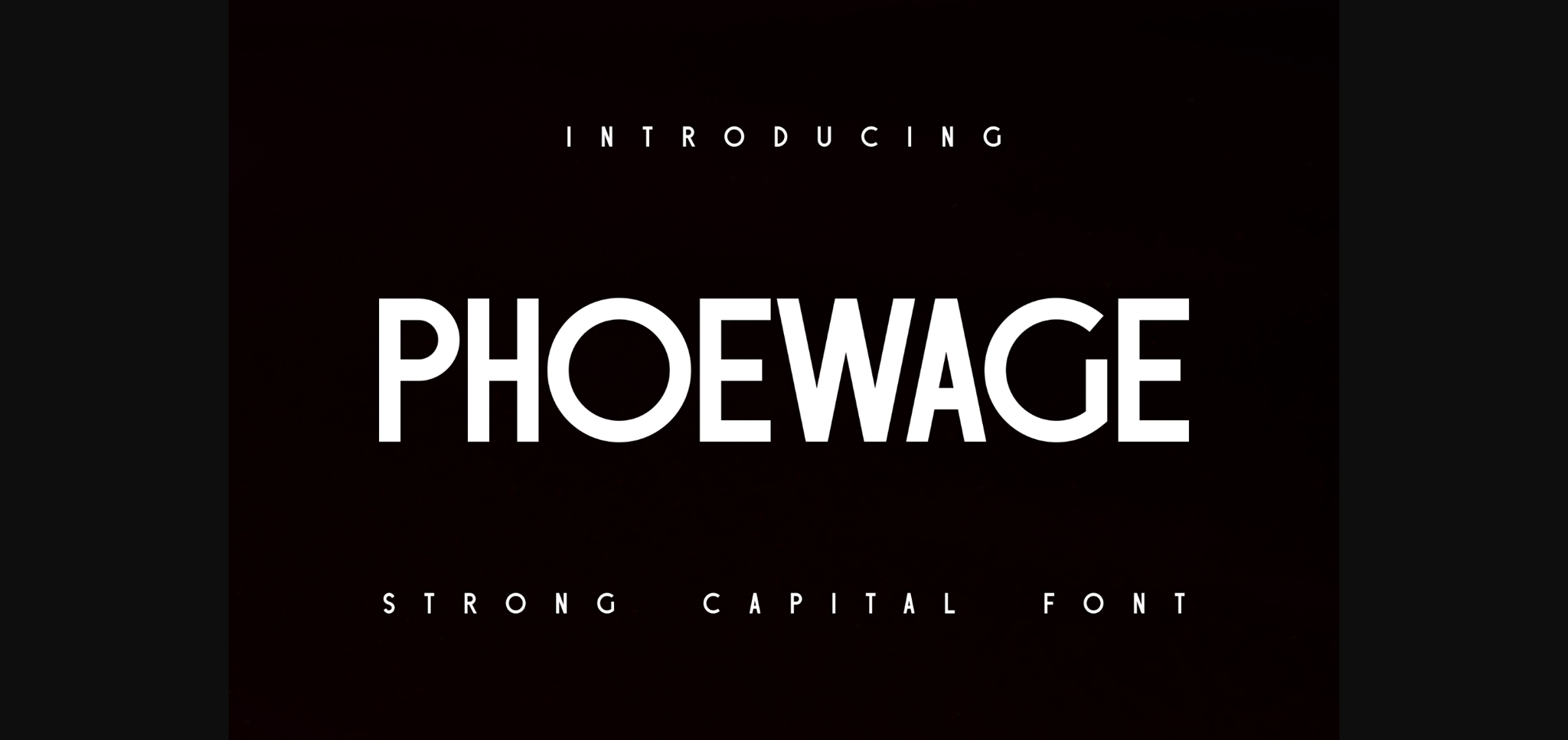
About Phoewage Font
Phoewage is an elegant and modern sans serif font. This minimalist and clean vibe can easily apply to your favorite designs such as book covers, magazines, social media posts, invitations, and so much more!